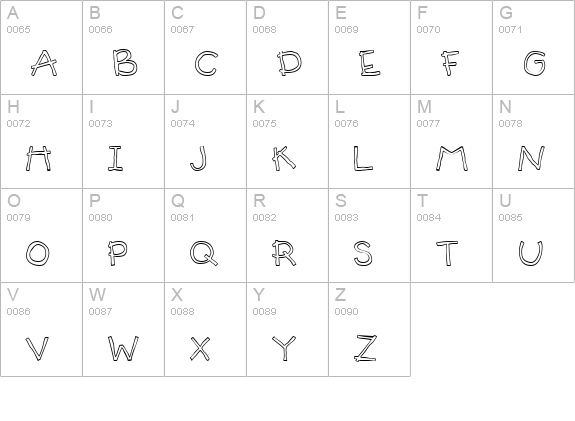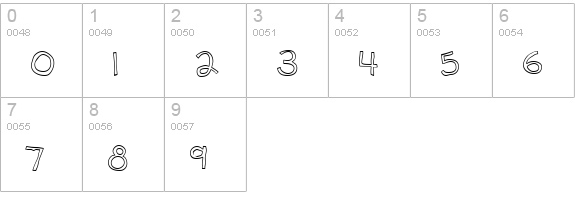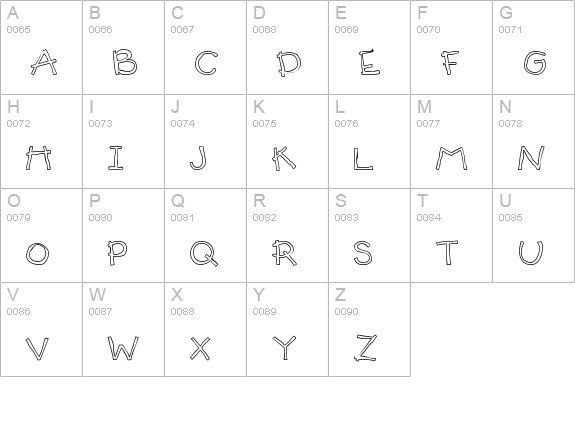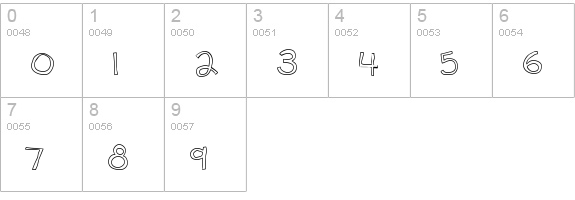
CK Toddler Font Details
Introducing CK Toddler font, a charming and playful typeface perfect for adding a touch of whimsy to any design project. This delightful font is ideal for creating eye-catching posters, invitations, and children's book covers. With its soft curves and friendly appearance, CK Toddler font exudes a sense of innocence and joy. What's even better is that CK Toddler font is available for free download at FontsMarket.com. Yes, you read that right - you can get your hands on this delightful font without spending a dime. So why wait? Download CK Toddler font today and let your creativity soar!